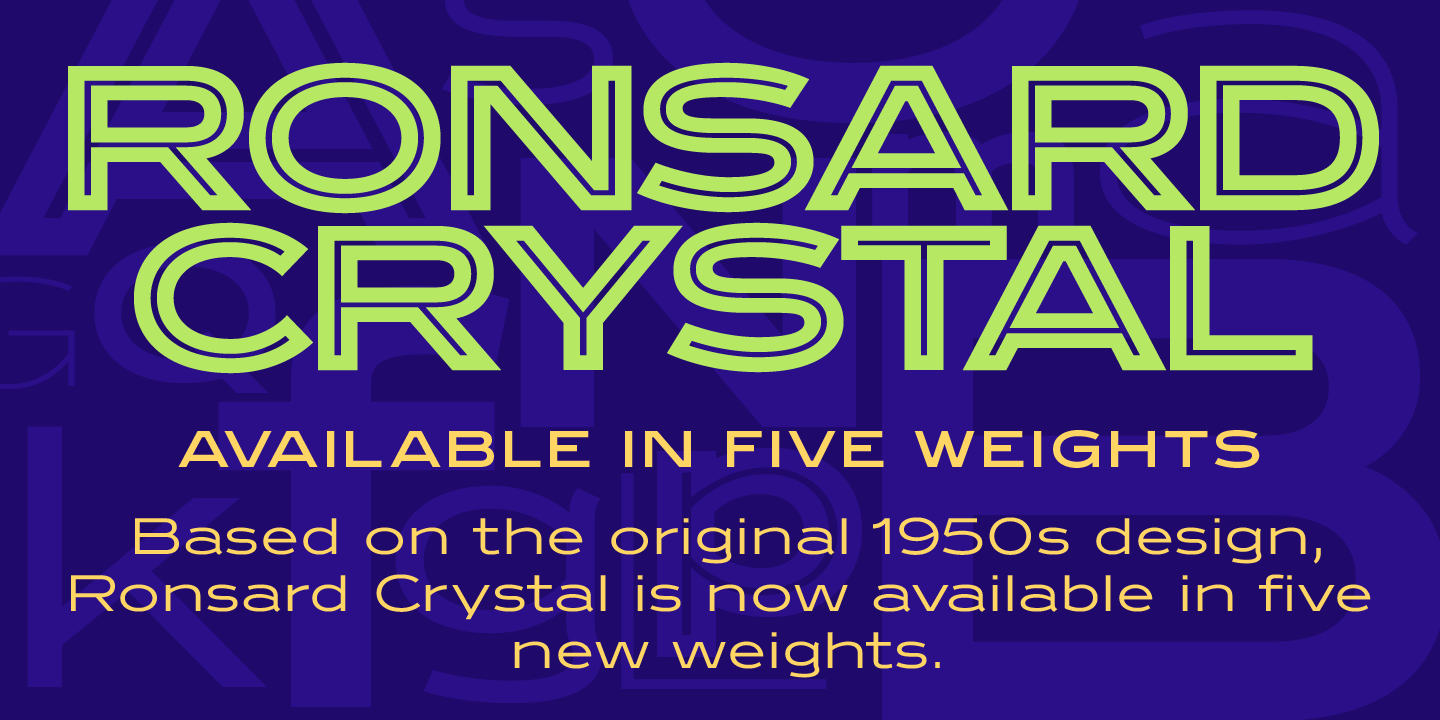
Ronsard Crystal Font
The original Ronsard Crystal began its life as a single-weight VGC photo display font in the 1950s. We liked it so much, that we decided to design four traditional weights to go with the original inline version.
Ronsard Crystal Font